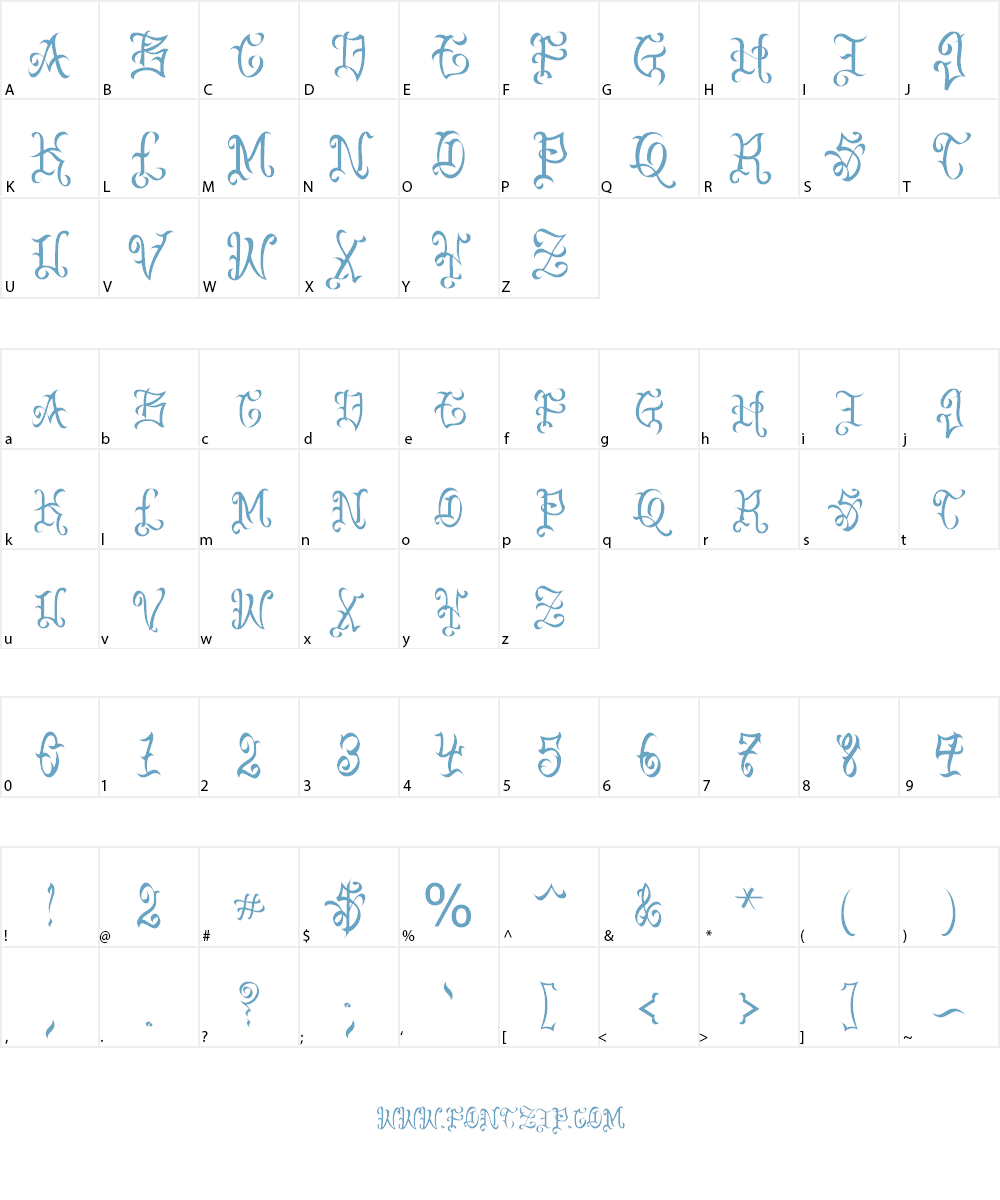
I had a lot of fun with this one, I did it all in Illustrator freehand messing around with the calligraphy brush and my wacom tablet. I had a old english blackletter in mind while I was doing it but was just having fun and drawing loosely.